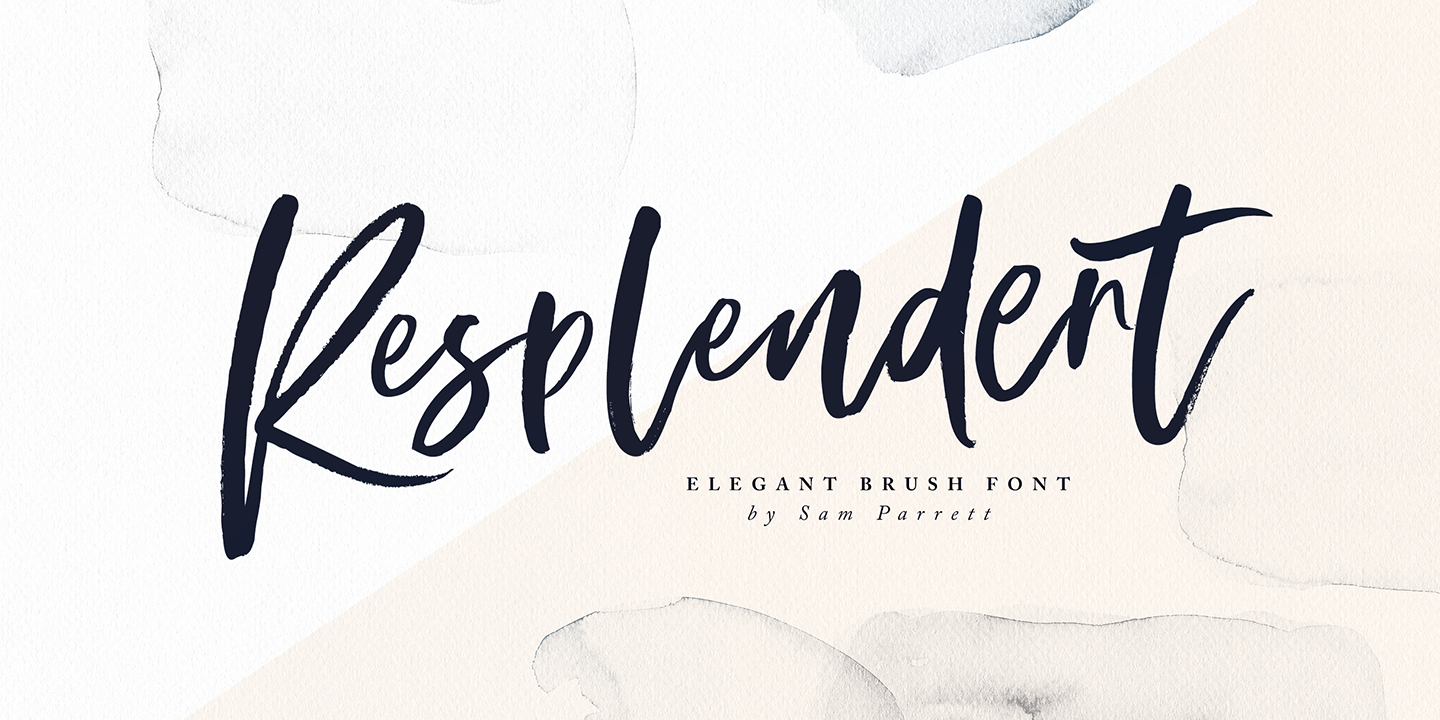
You can use Resplendent Font in luxury branding, wedding stationery, elegant product packaging, upscale invitations, fashion editorials, and boutique logos. It’s the ideal font for projects that demand class, sparkle, and sophistication.
What makes this font so exciting is its ornate curves, high-contrast strokes, and regal flair. Resplendent Font lives up to its name—it radiates glamour and elegance in every letterform. It turns ordinary text into a visual celebration, effortlessly drawing the eye.
Resplendent Font comes in a carefully crafted family of styles including Regular, Italic, Swash, and Decorative Alternates. This rich variety gives designers the flexibility to create dynamic layouts while maintaining a unified, luxurious feel.